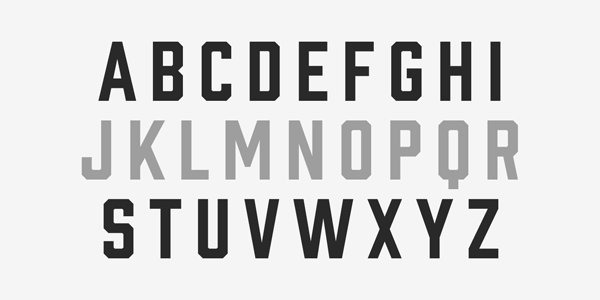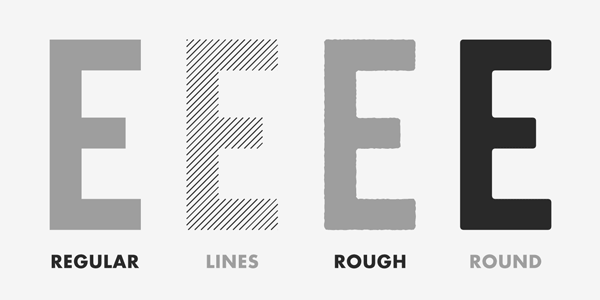
Prohibition Retro Font Design.
Prohibition is a beautiful vintage type family by Mattox Shuler (Font Publisher: Hold Fast Foundry). Its retro typeface was inspired by typical fonts of the 1920s. Therefore, Prohibition is in good company with fonts such as Bourbon and Gin. Prohibition’s vintage sans serif typeface was designed in the spirit of classic display fonts known from old posters and billboards of industrial factories. The font family includes several OpenType features such as Stylistic Alternates and Discretionary Ligatures. Prohibition supports multiple languages and is available as Webfont and Desktop font.